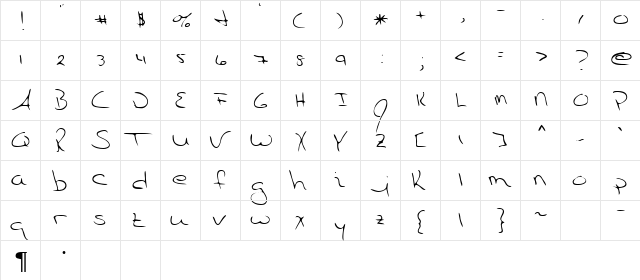
Kadamol Regular
Design Context for Kadamol Typeface
Kadamol is a composed and adaptable typeface that performs quietly and consistently across a wide range of design contexts.